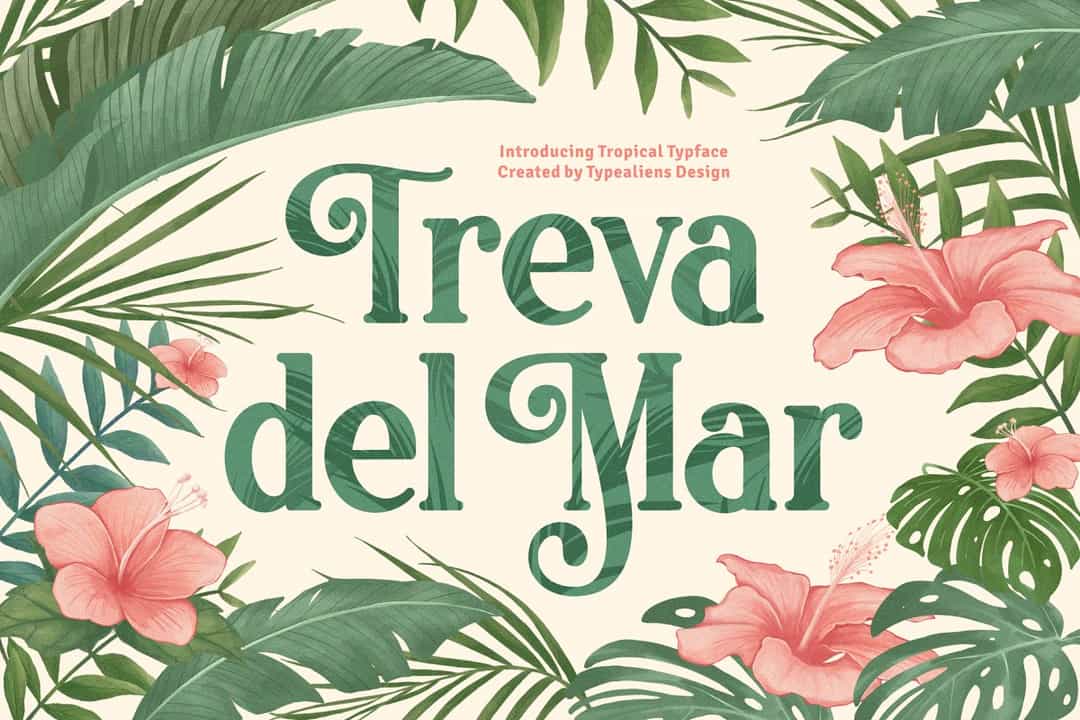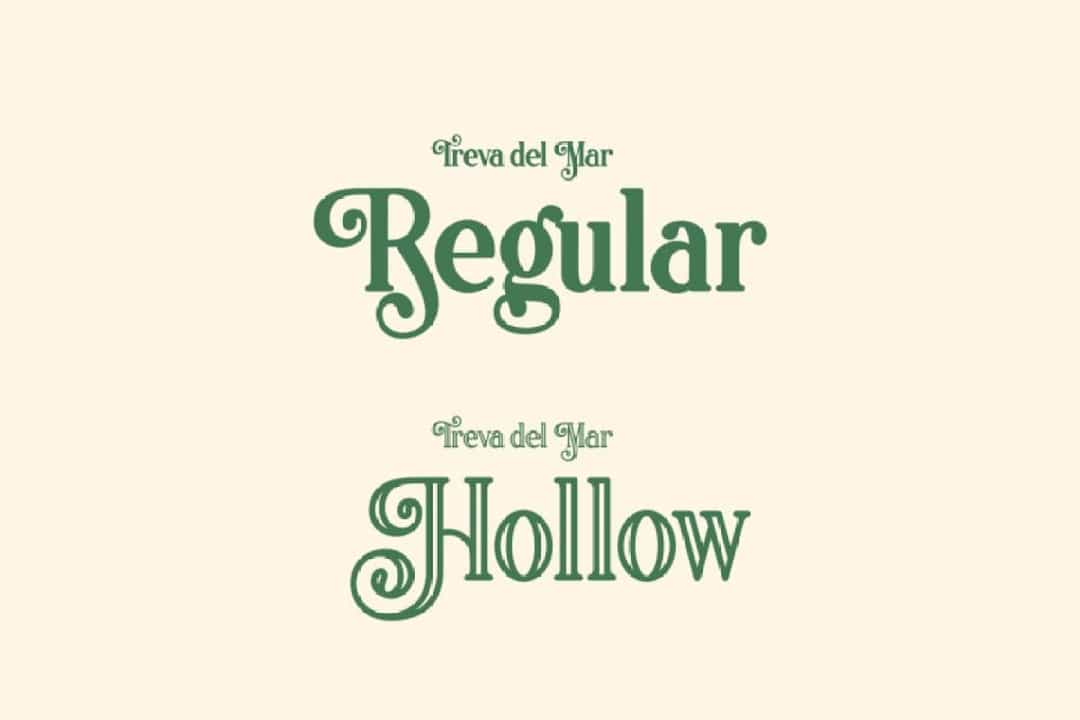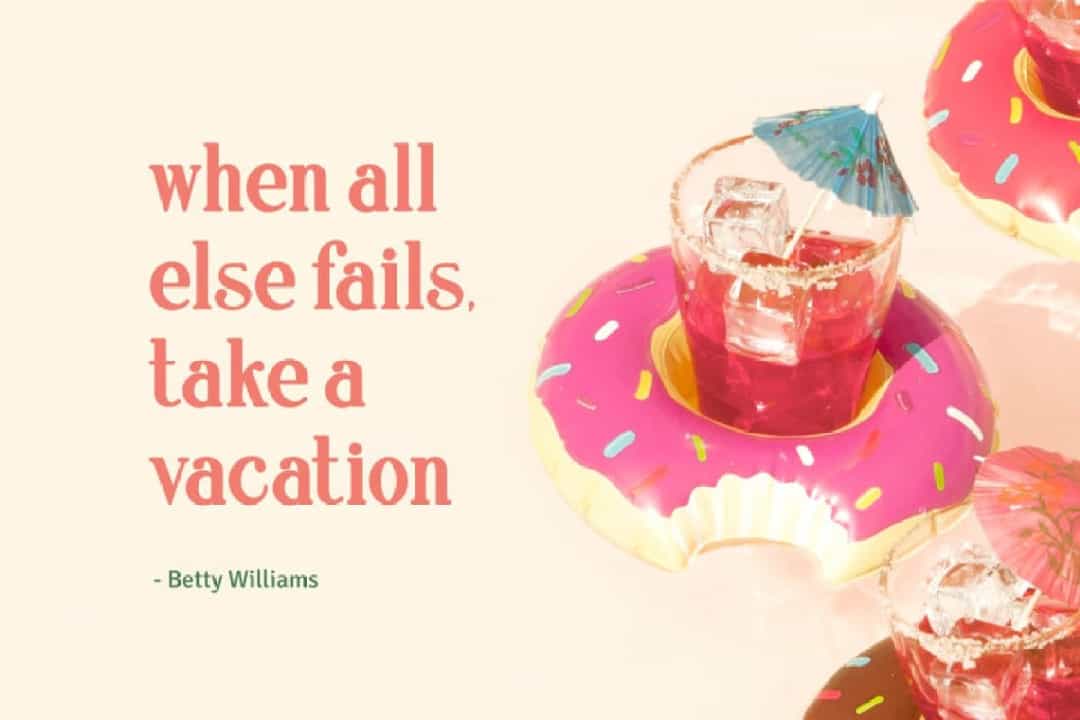
Treva del Maris elegant serif font family that reflects modern typeface design. Treva del Mar very easy to use and with elegant and sophisticated alternatives. Treva del mar font is ideal for logotypes, display fonts as well as designs for packaging, labels, or food-related designs.